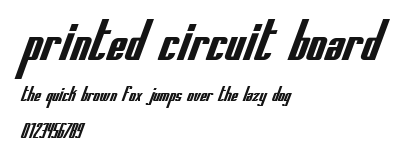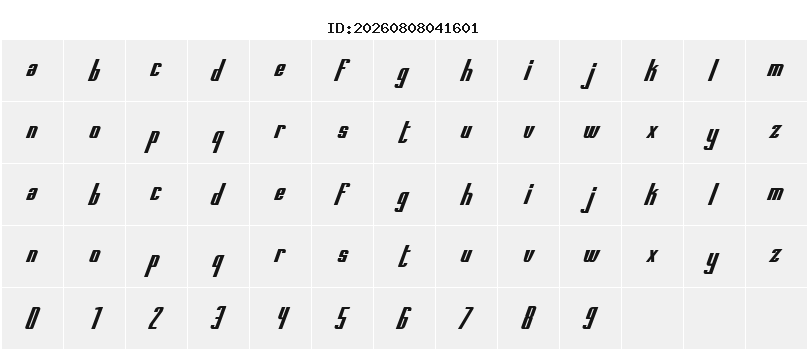
• Font Name: Printed Circuit Board
• Full Font Name: Printed Circuit Board Italic
About Printed Circuit Board.ttf
Printed Circuit Board.ttf is a modern, elegant sans-serif font designed for ultimate readability and visual harmony. Perfect for branding, headlines, web design, and print materials.